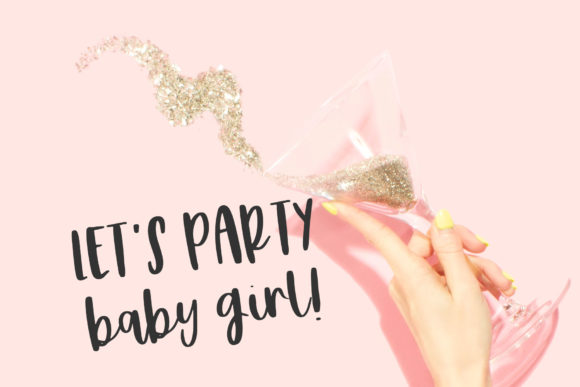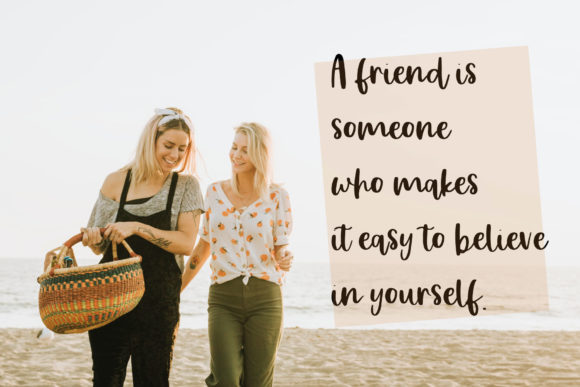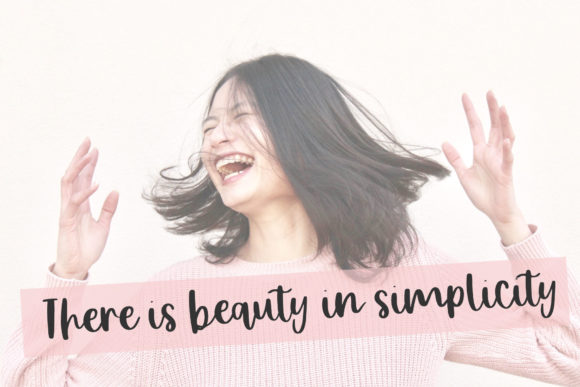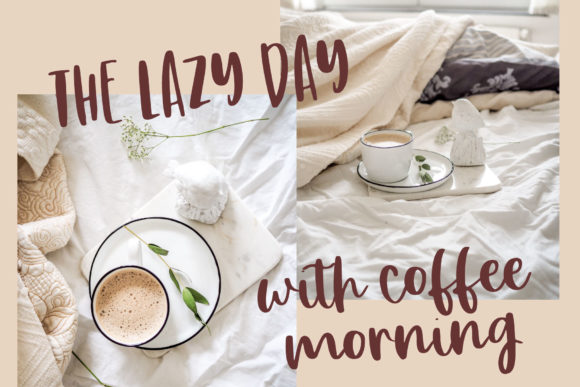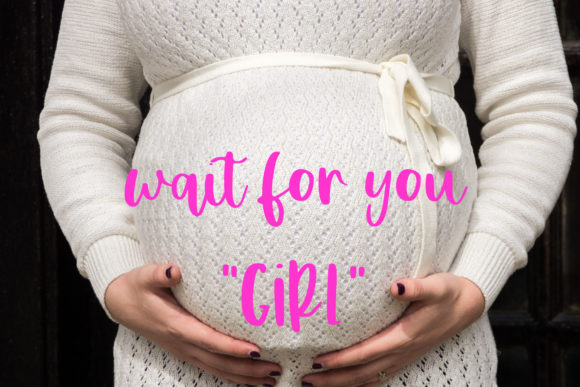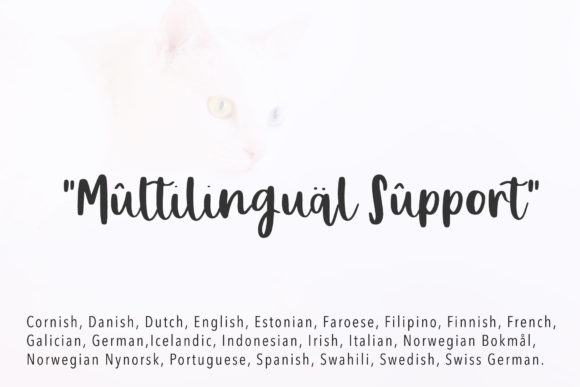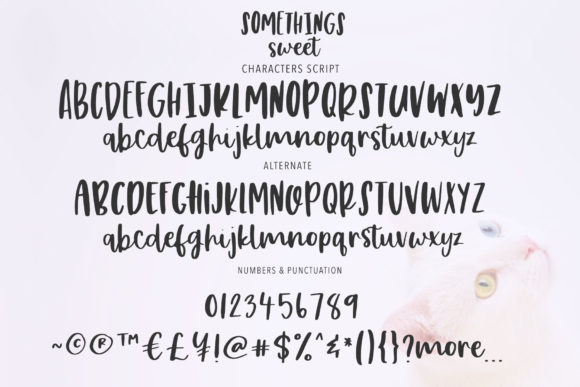
Somethings Sweet Font
About Somethings Sweet Font
The Somethings Sweet is a simple, yet chic font. It has a natural handwritten feel which will add a natural touch to your designs.
This handwritten font is ideal for branding and decorating your amazing projects!